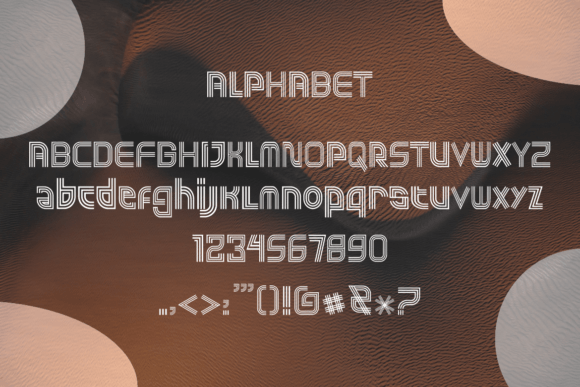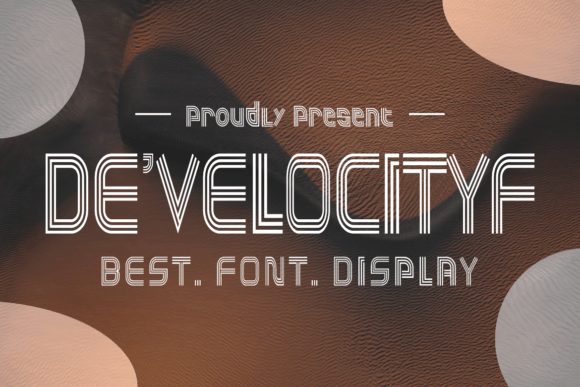
Unleash Your Creativity with Develocityf Font
Are you tired of using the same old fonts in your creative projects? Look no further! Develocityf is a cool and modern display font that is sure to take your designs to the next level. With its unique and sleek design, Develocityf is the perfect addition to any project, from branding and advertising to packaging and digital media.
What is Develocityf Font?
Develocityf is a display font that is designed to make a statement. Its modern and edgy design makes it perfect for projects that require a bold and eye-catching font. The font is carefully crafted to provide a unique and distinctive look that will set your project apart from the rest.
Key Features of Develocityf Font
- Modern and Edgy Design: Develocityf has a sleek and modern design that is sure to grab attention.
- Unique and Distinctive: The font has a unique and distinctive look that will set your project apart from the rest.
- High-Quality: Develocityf is a high-quality font that is designed to provide clear and crisp text.
- Easy to Read: Despite its bold design, Develocityf is easy to read, making it perfect for use in a variety of projects.
Benefits of Using Develocityf Font
So, why should you use Develocityf in your creative projects? Here are just a few benefits of using this amazing font:
- Adds a Professional Touch: Develocityf adds a professional touch to any project, making it perfect for use in branding and advertising.
- Increases Visibility: The bold design of Develocityf makes it easy to grab attention, increasing visibility for your project.
- Versatile: Develocityf can be used in a variety of projects, from digital media to packaging.
How to Use Develocityf Font
Using Develocityf in your creative projects is easy! Here are a few tips to get you started:
- Pair it with Other Fonts: Develocityf looks great when paired with other fonts, so don’t be afraid to experiment.
- Use it as a Header: Develocityf is perfect for use as a header font, adding a bold and eye-catching touch to your project.
- Experiment with Colors: Develocityf looks great in a variety of colors, so don’t be afraid to experiment and find the perfect color for your project.
In conclusion, Develocityf is a cool and modern display font that is sure to take your creative projects to the next level. With its unique and sleek design, Develocityf is the perfect addition to any project, from branding and advertising to packaging and digital media. So why wait? Add Develocityf to your project today and see the amazing outcome for yourself!
Develocityf Font – Frequently Asked Questions
What is Develocityf font?
Develocityf is a cool and modern display font.